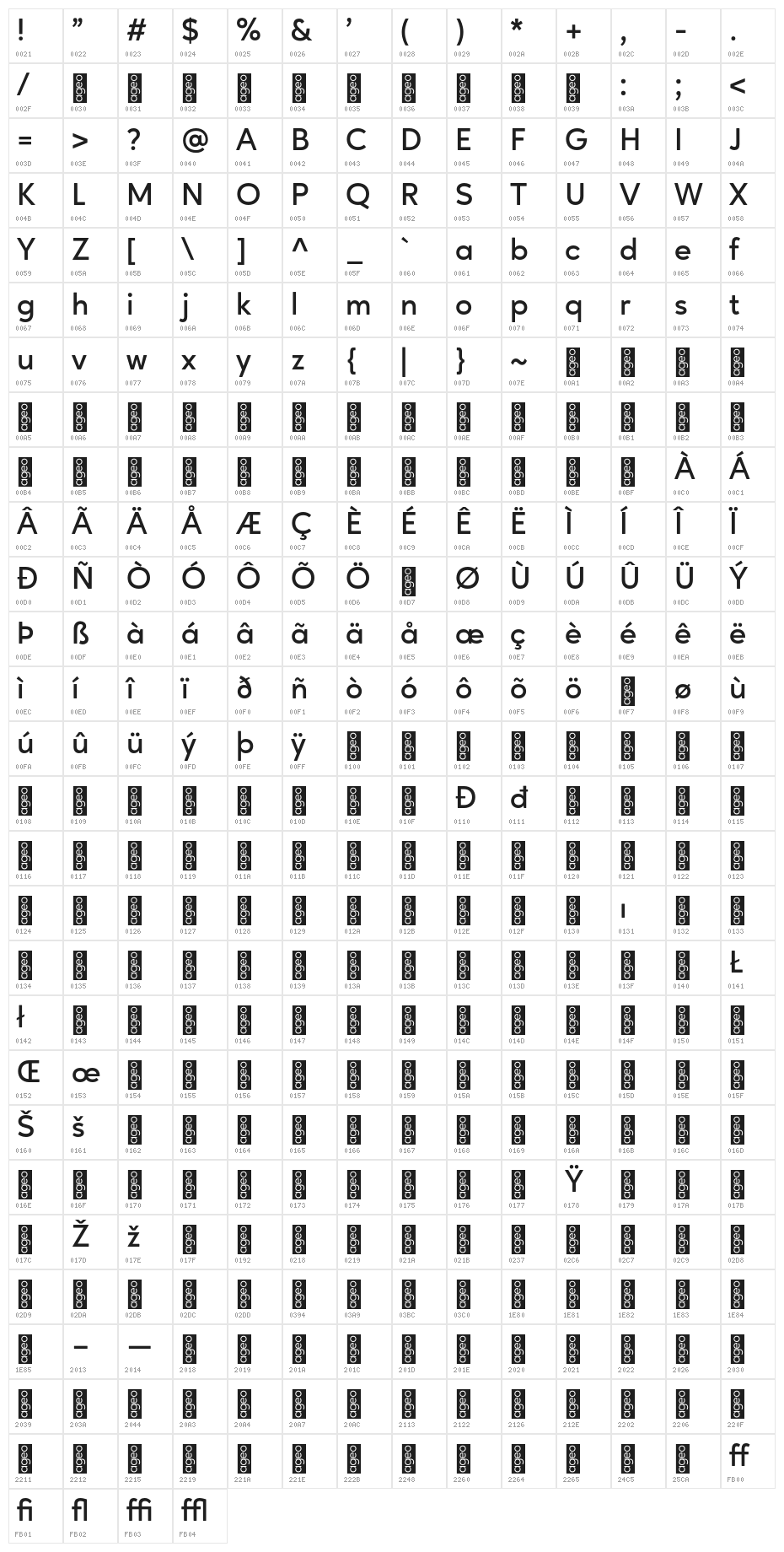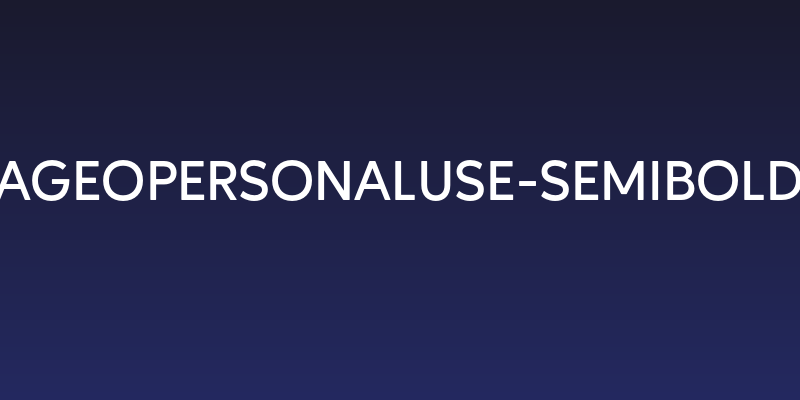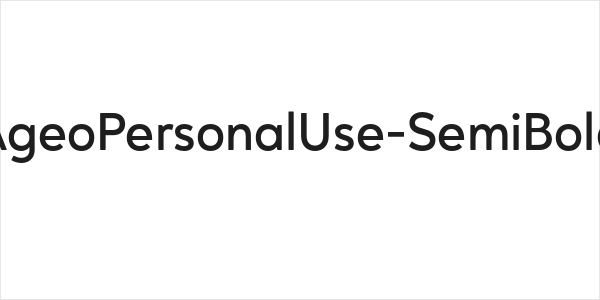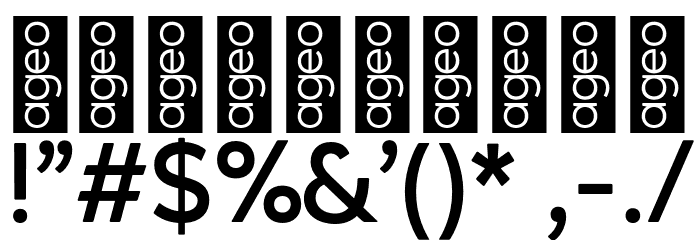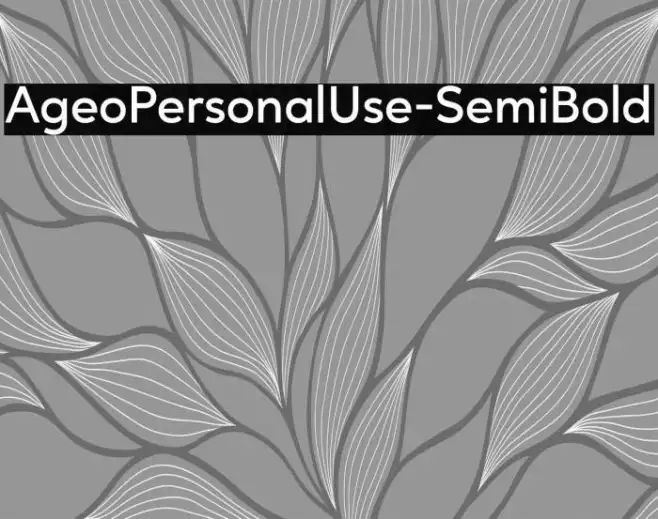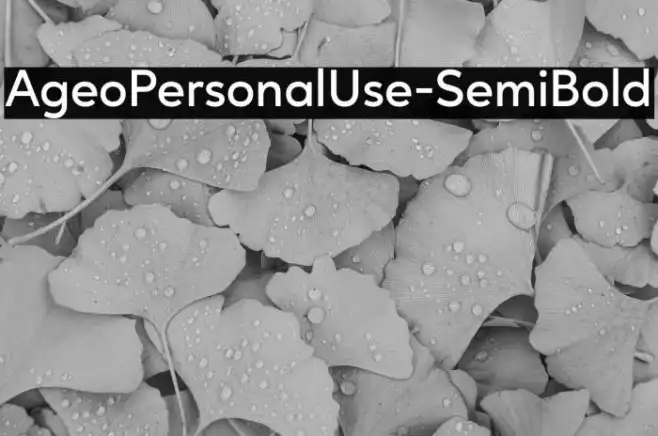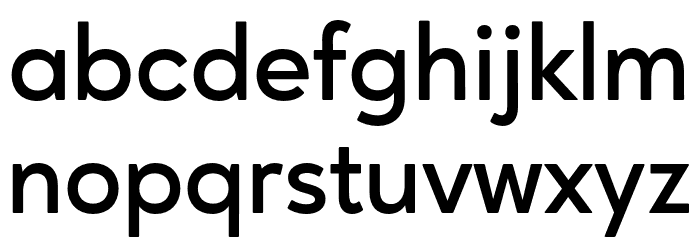
AgeoPersonalUse-SemiBold Font
AgeoPersonalUse-SemiBold Description
This font features a clean and modern sans-serif design with a semi-bold weight, offering a balanced and professional appearance. The characters are well-proportioned with consistent stroke widths, providing a harmonious and legible text. The uppercase letters are bold and assertive, while the lowercase letters maintain a friendly and approachable style. The numerals are clear and straightforward, making them suitable for various applications. Special characters are included, enhancing the font's versatility. Overall, this font is ideal for projects that require a contemporary and polished look.
| Use Case | Headlines, Body text, Logos |
| Proposed Projects | Ideal for branding, advertising, web design, and editorial projects where a modern and professional look is desired. |